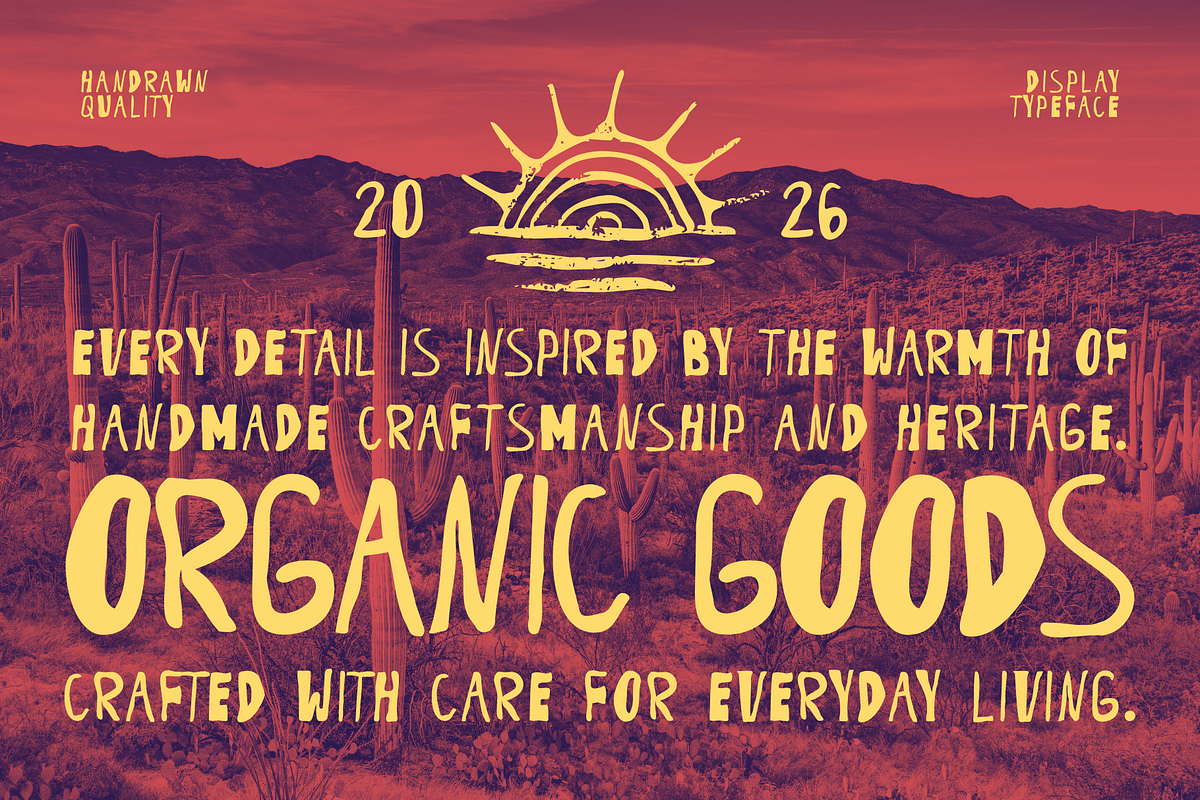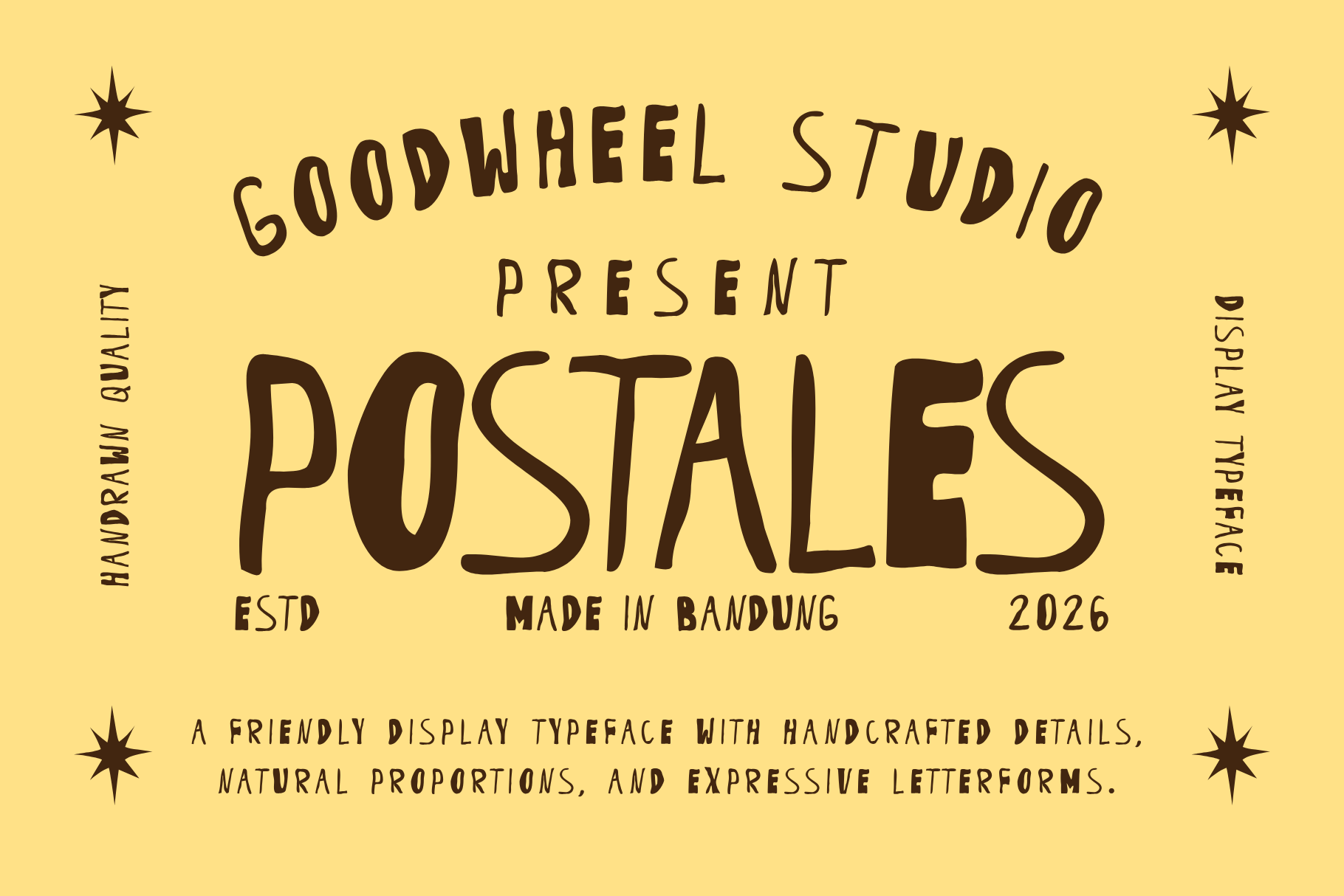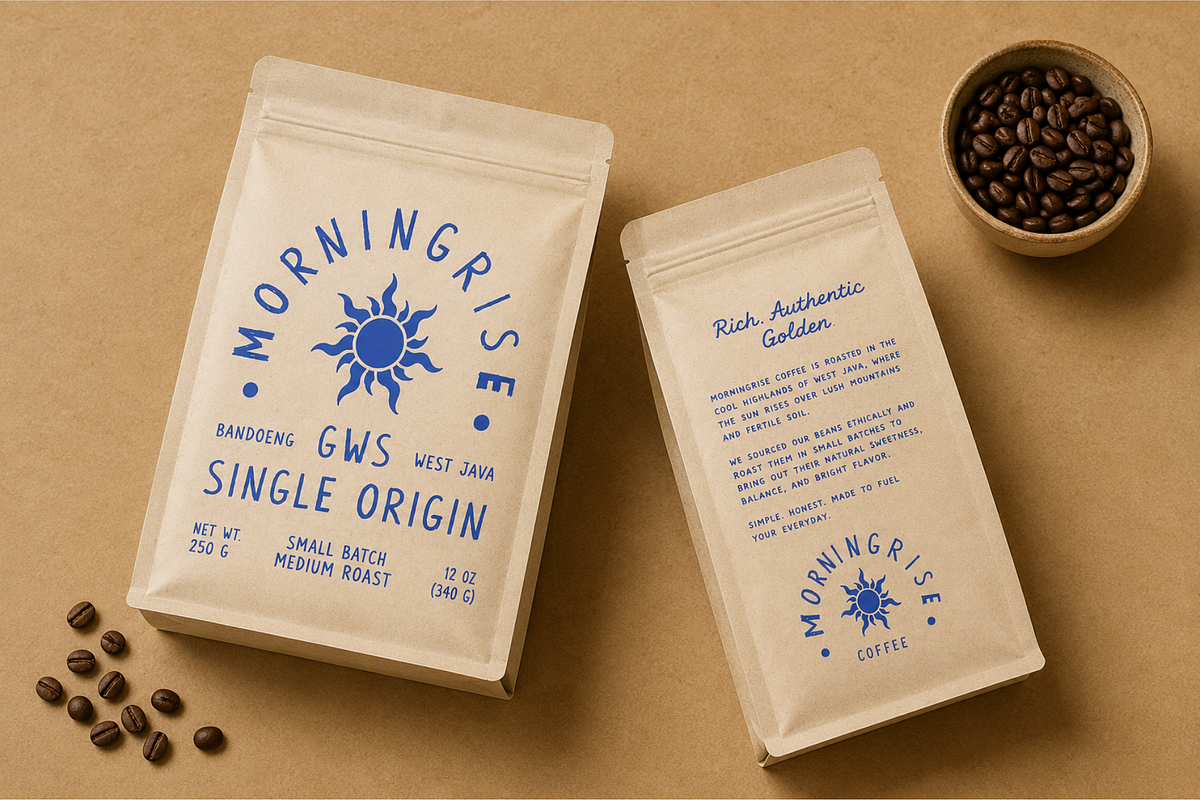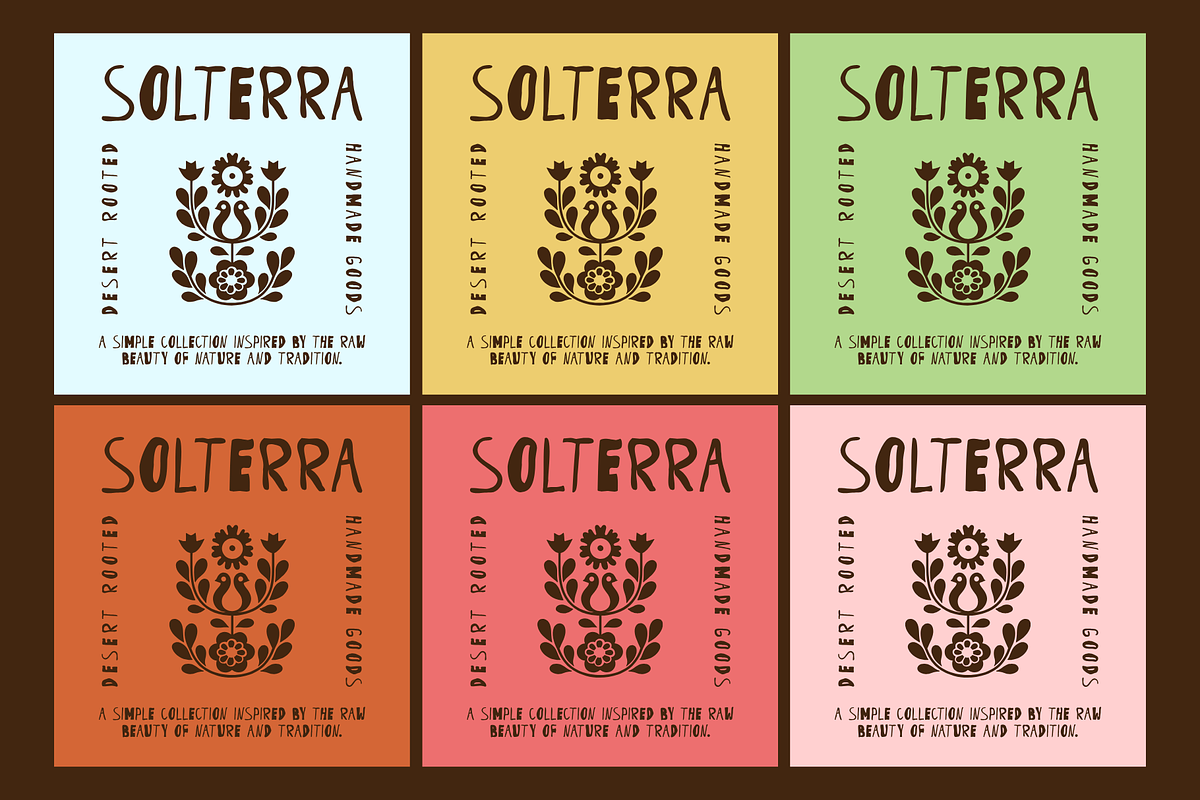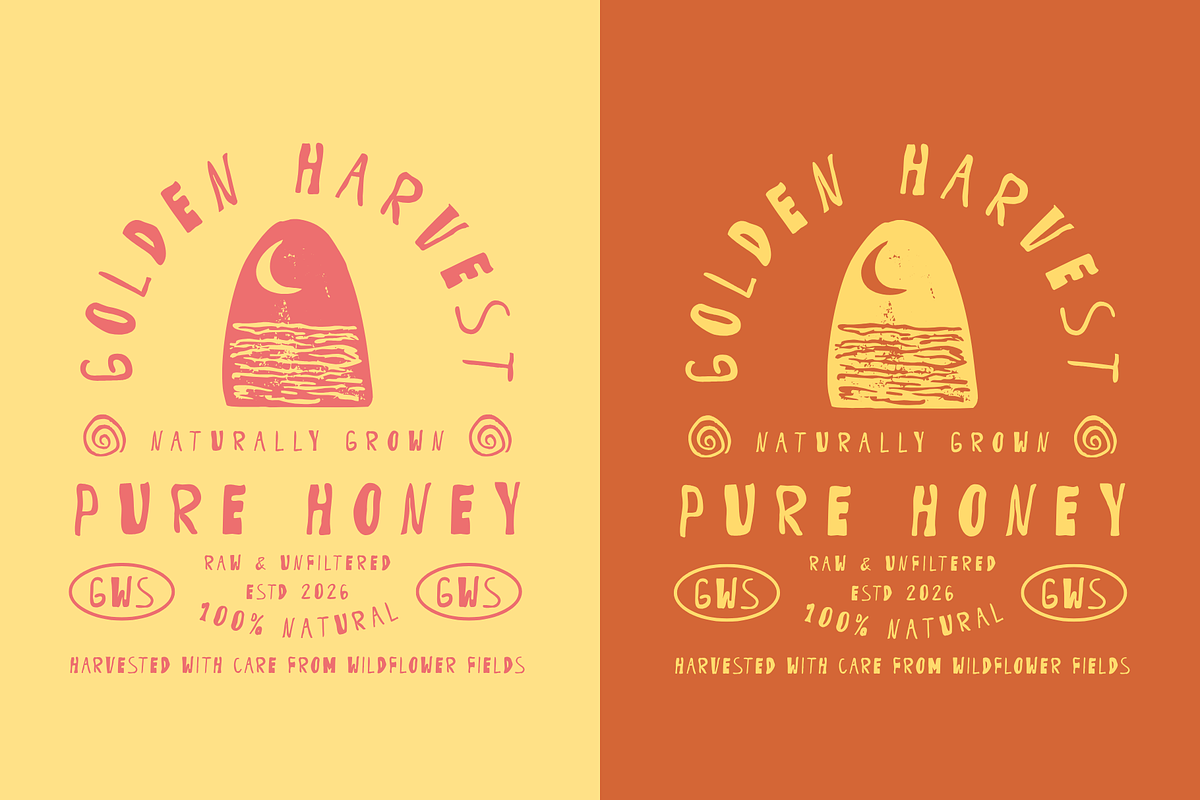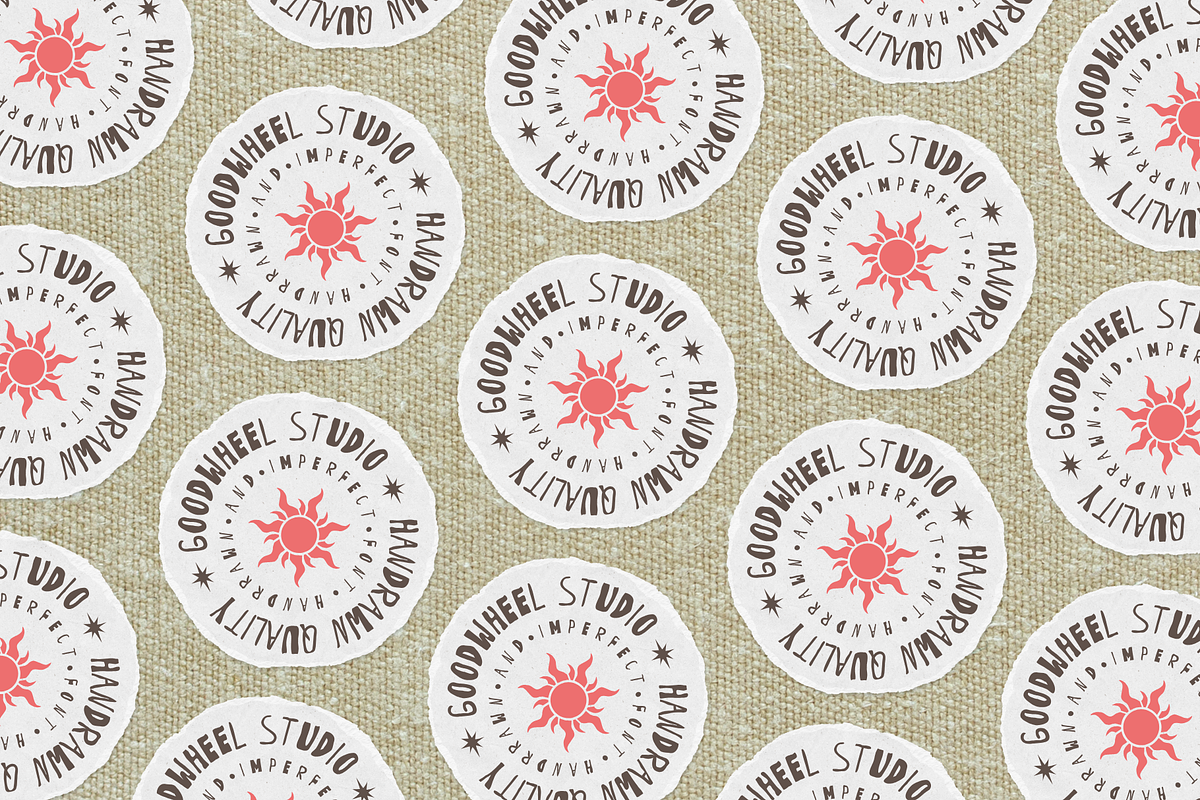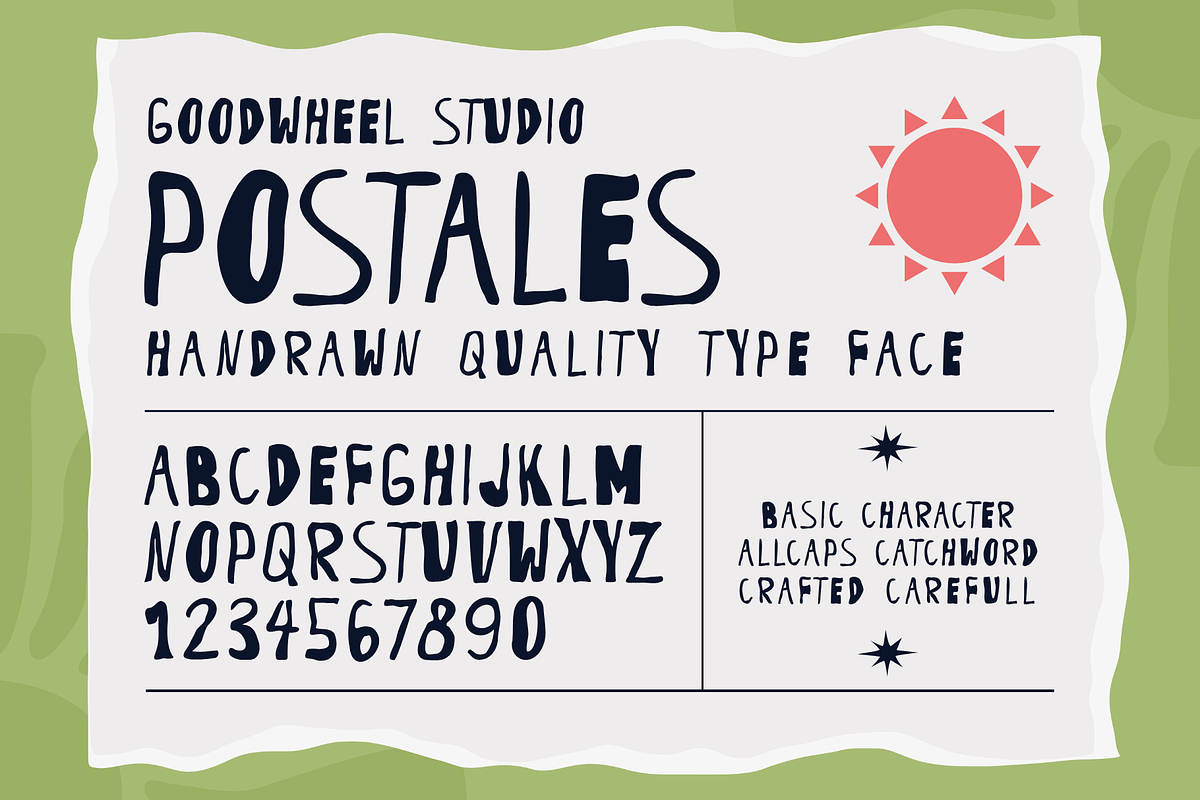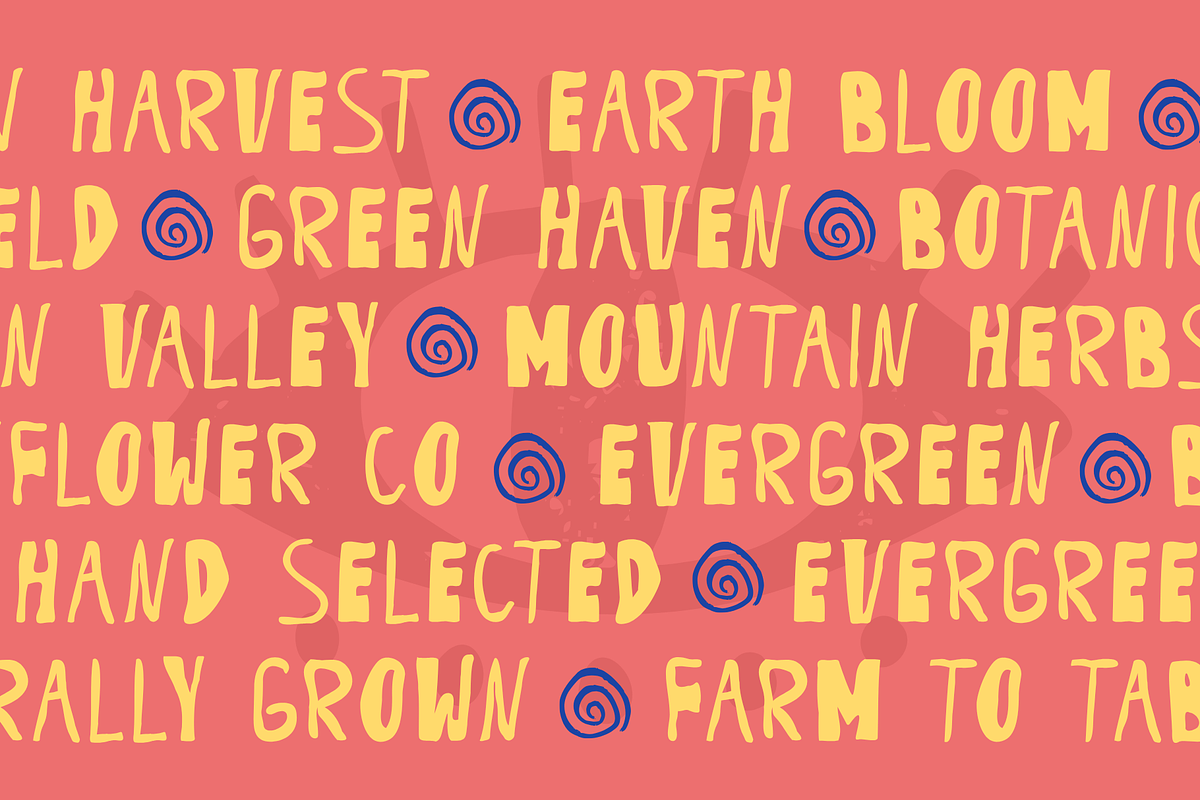
Postales | Handdrawn Typeface
Postales is a charming handcrafted display font inspired by handwritten postcards, travel journals, and creative sketchbooks. Its tall, playful letterforms and naturally imperfect strokes bring warmth, authenticity, and a personal touch to every design. Perfect for branding, packaging, logos, greeting cards, posters, book covers, social media graphics, children's products, and editorial layouts, Postales creates a friendly and memorable visual impression. The font includes uppercase letters, numbers, punctuation, multilingual support, and essential symbols, making it versatile for both print and digital projects. Whether you're designing rustic branding or cheerful creative artwork, Postales delivers handcrafted character with effortless style and timeless appeal.